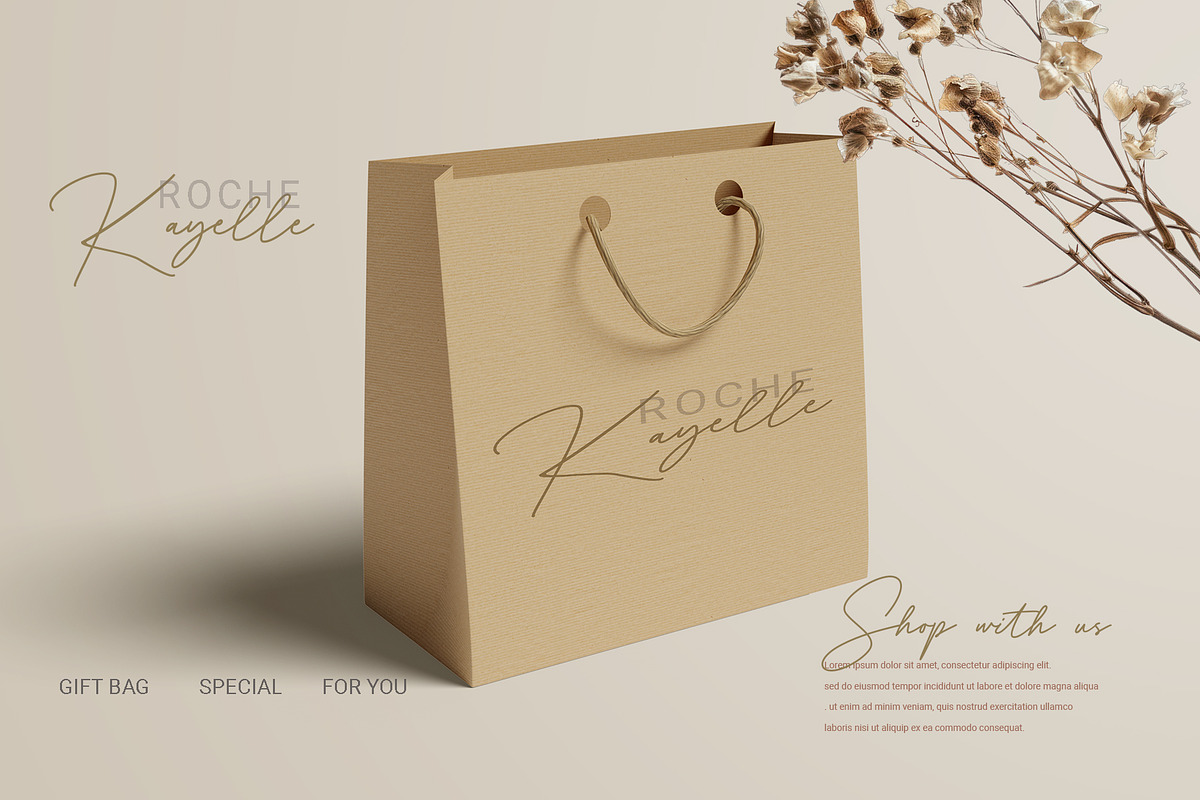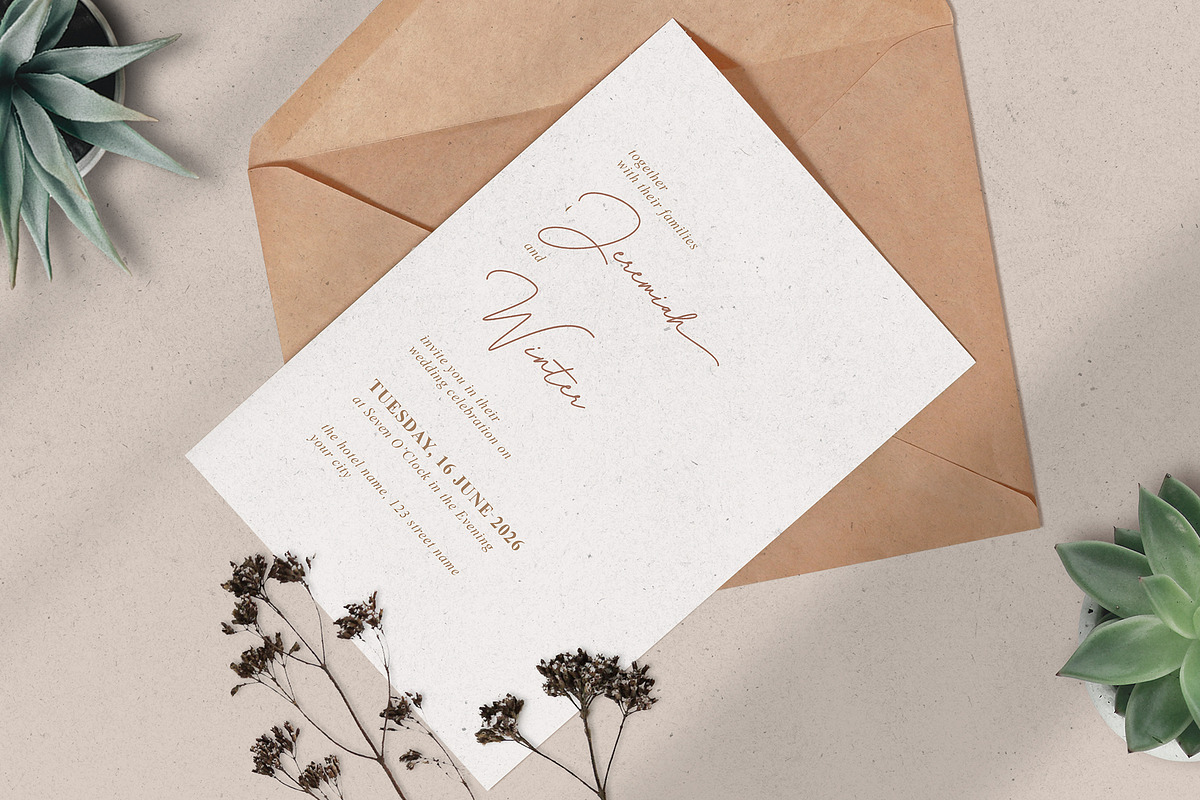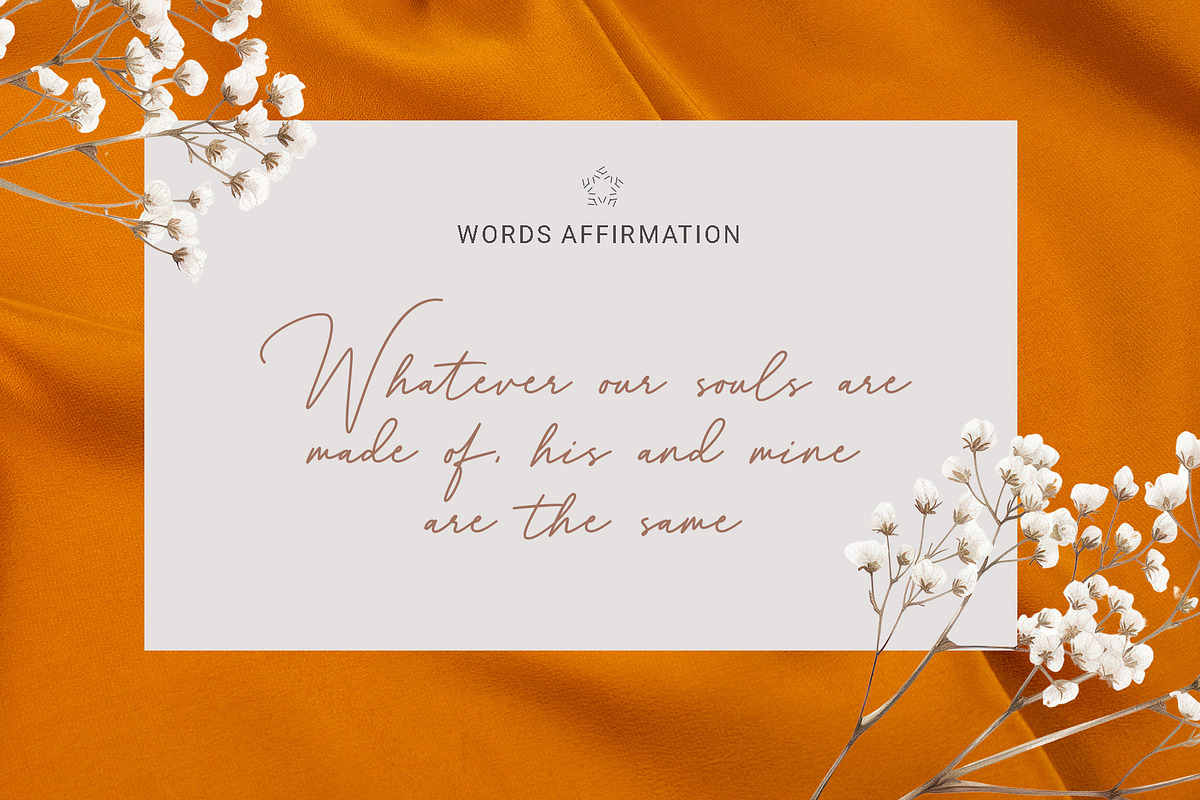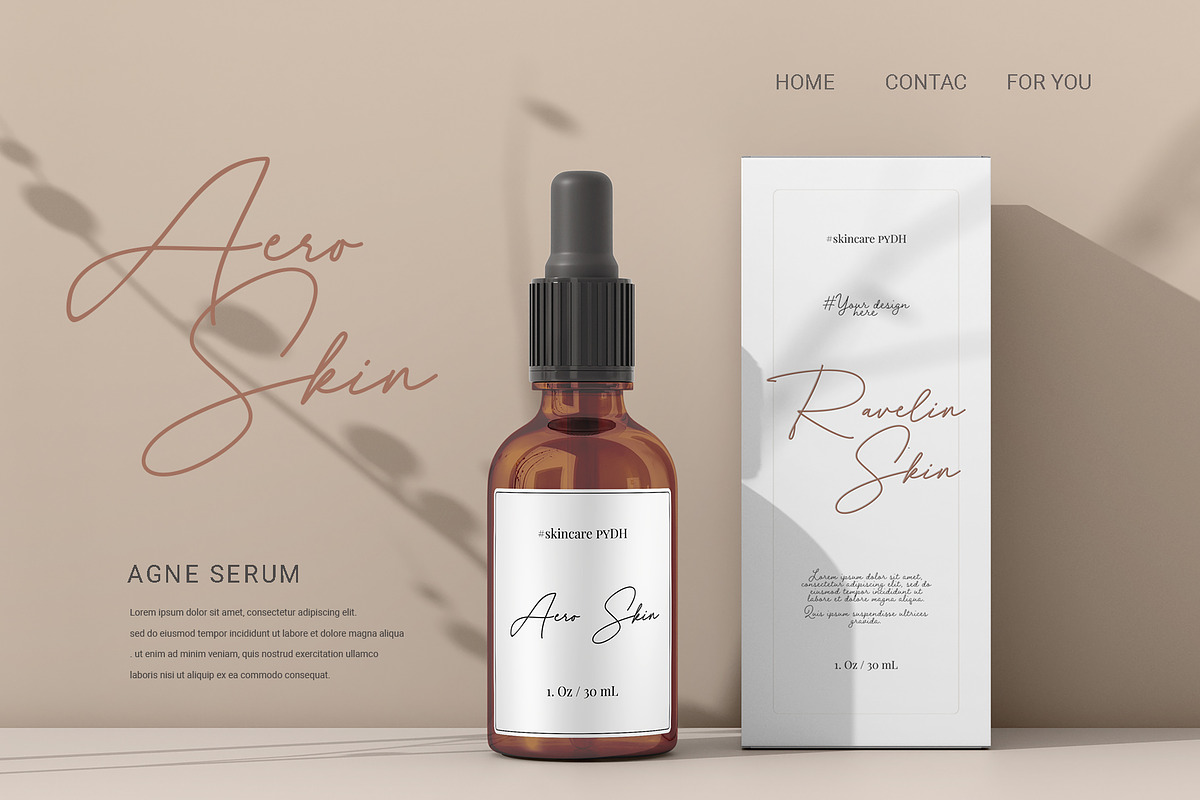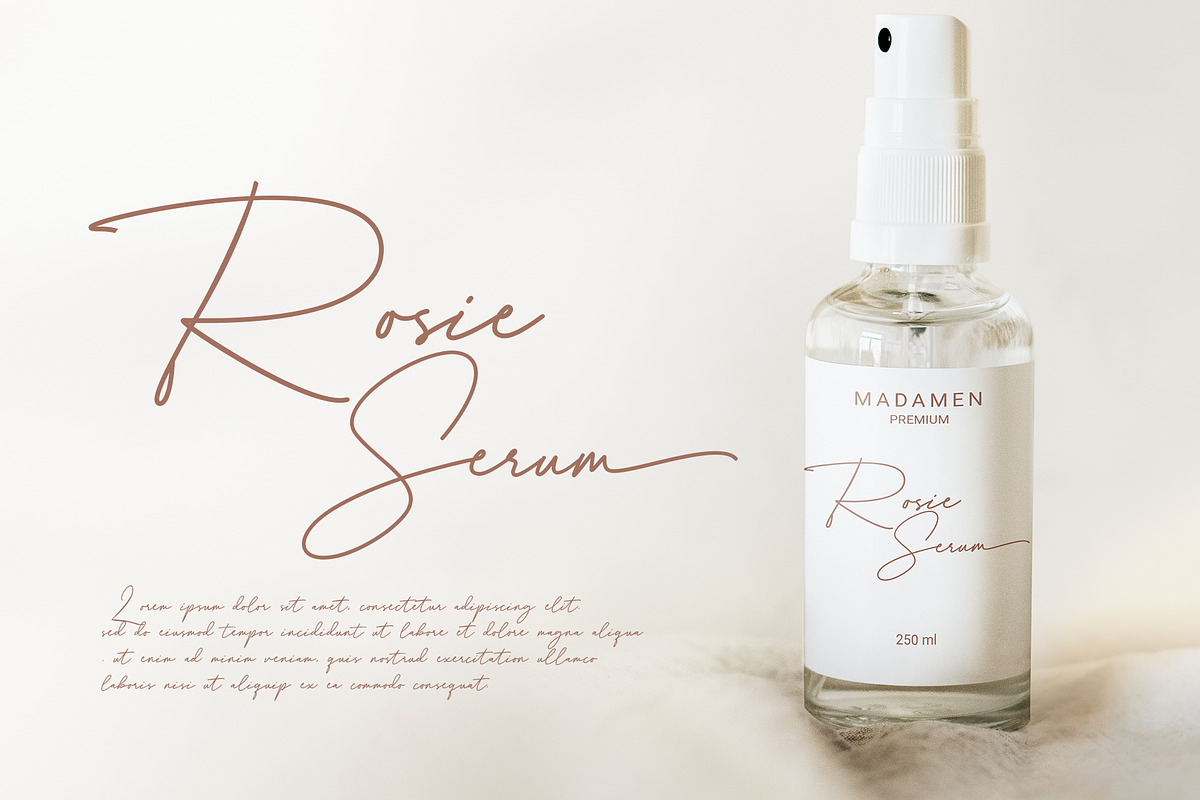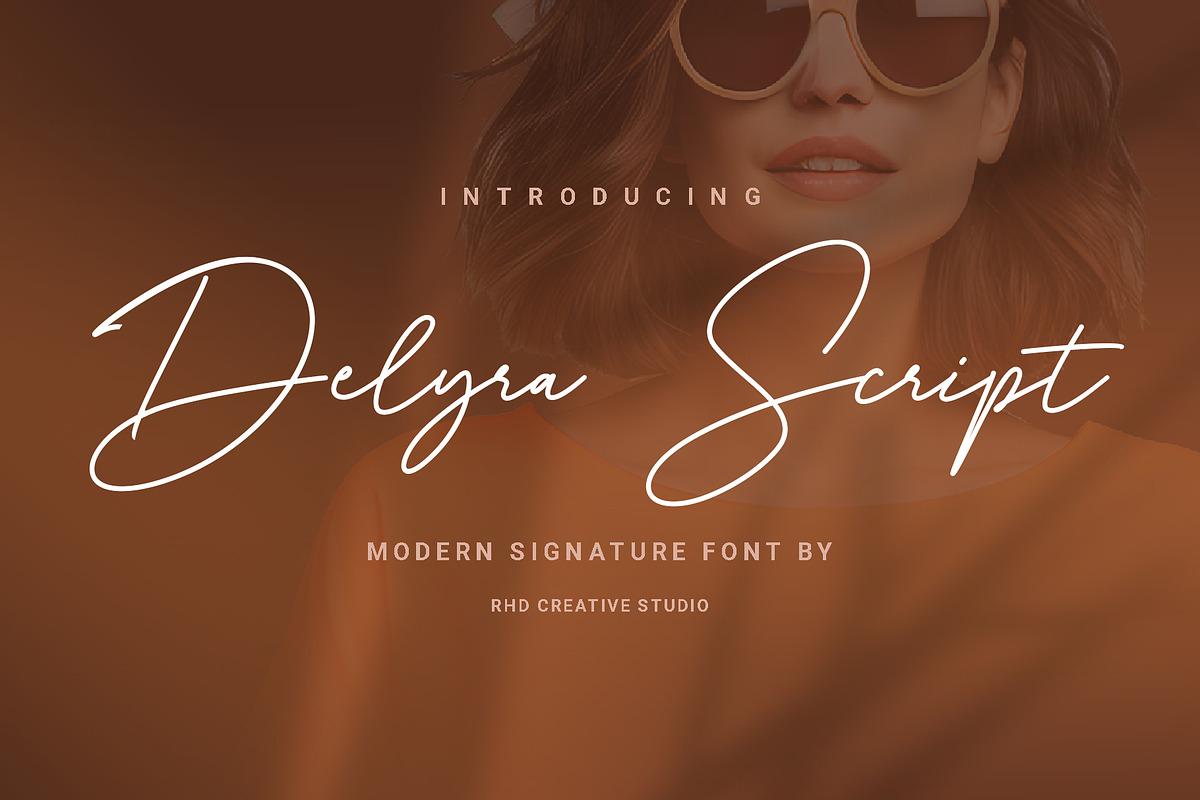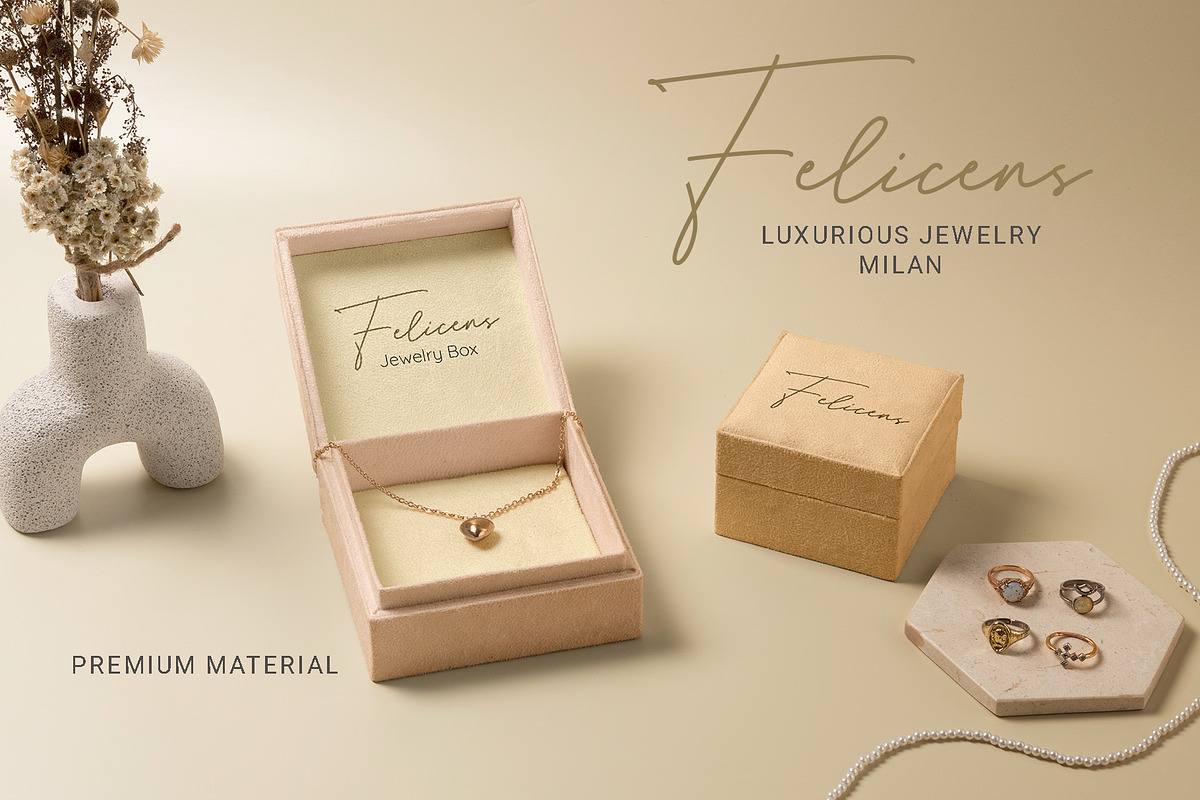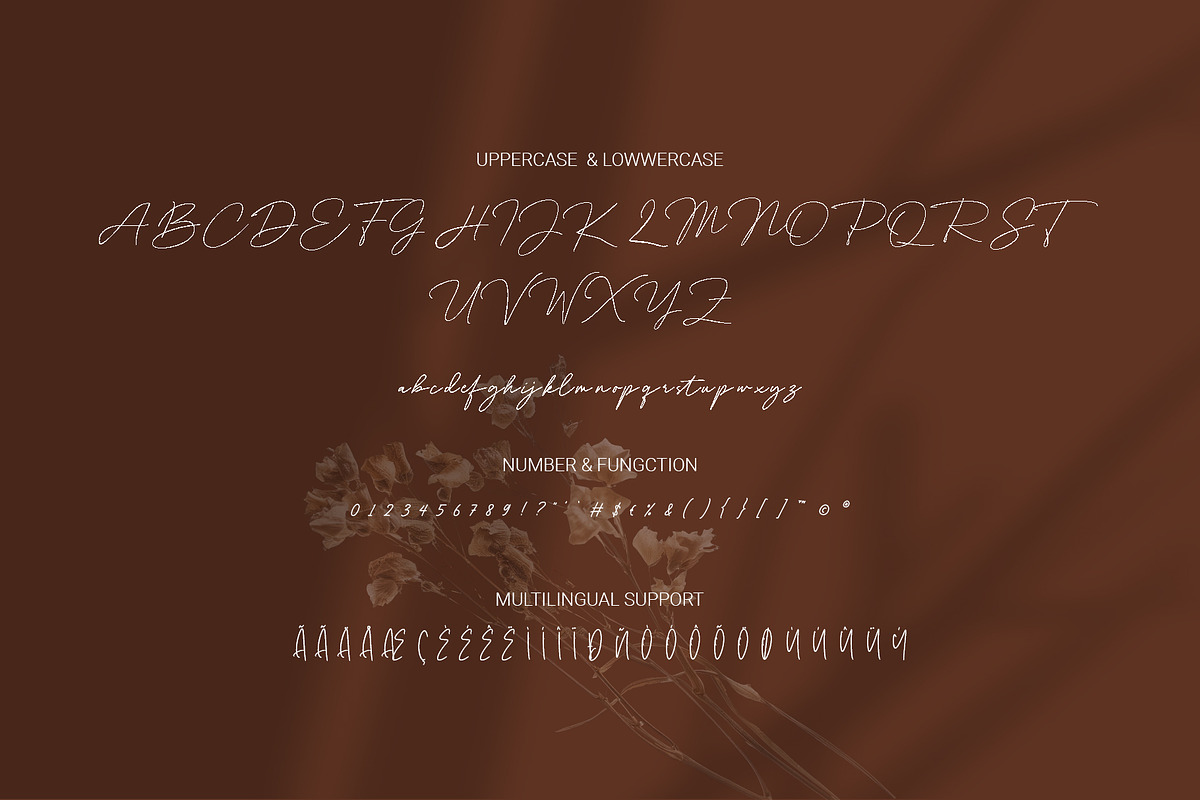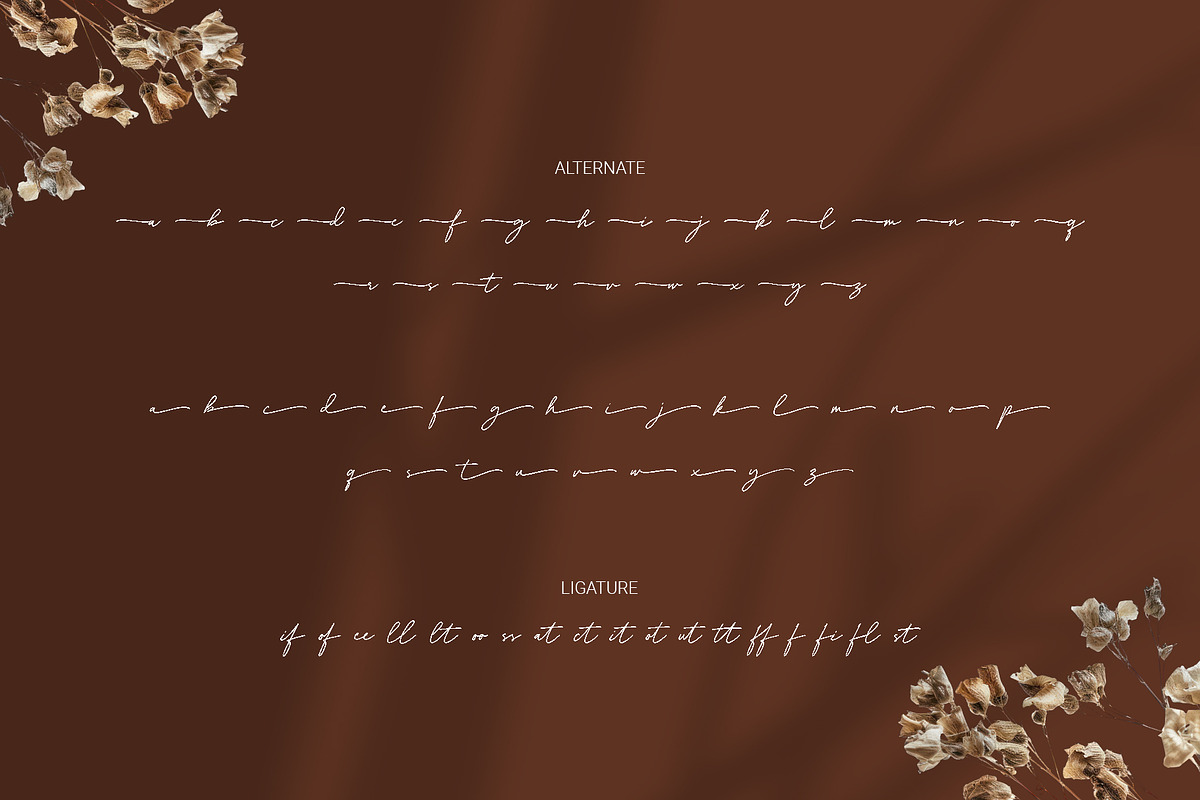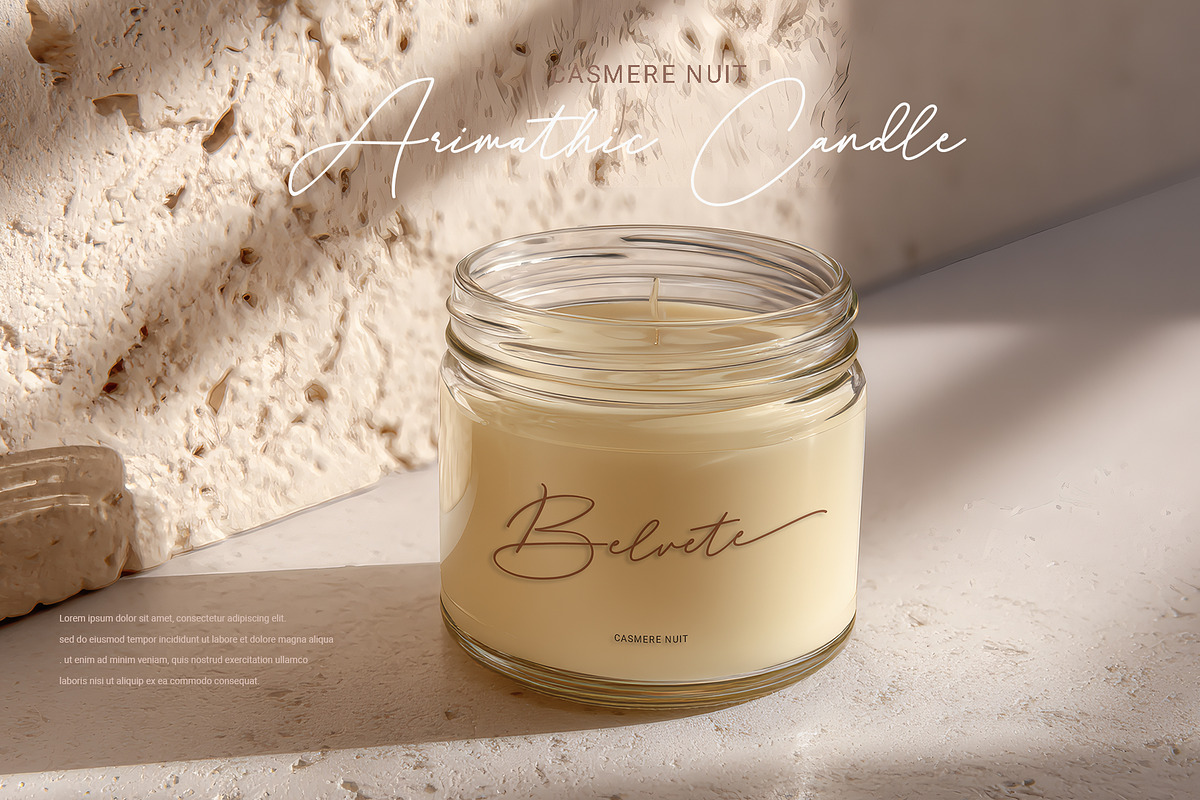
Delyra Script - Modern Signature
Hello everyone, I would like to introduce Delyra Script - Modern Signature Font.
Delyra Script - Modern Signature Font with Handmade character. Delyra Script - Modern Signature Font, Modern font to make your design project stand out! Delyra Script a perfectly choice for any creative endeavor, creating, modern, chic, lifestyle design such as logotype, title, cover, branding, invitations, wedding designs, display and magazine, social media posts, advertisements, printed quotes, product packaging, corporate brand, product designs, labels, photography, watermarks, special events and any other project with modern touch.
- Alternate & Ligature